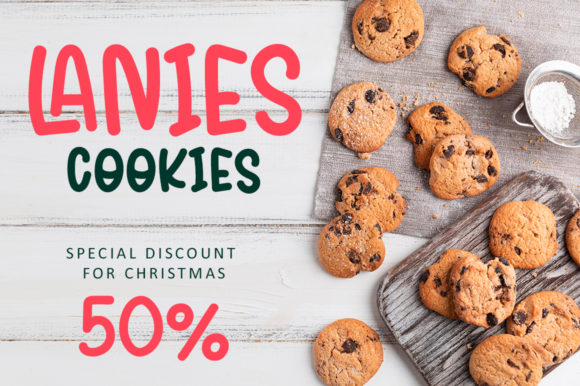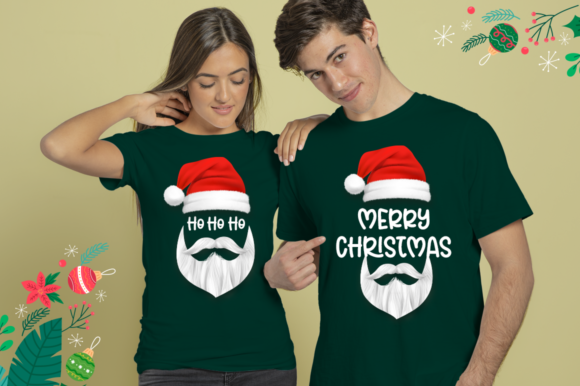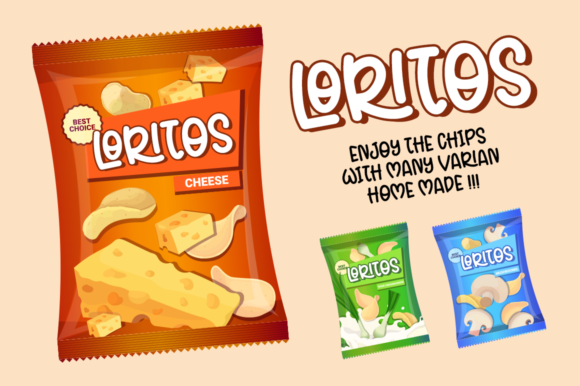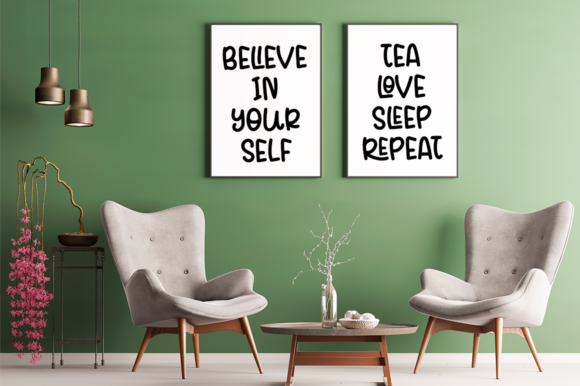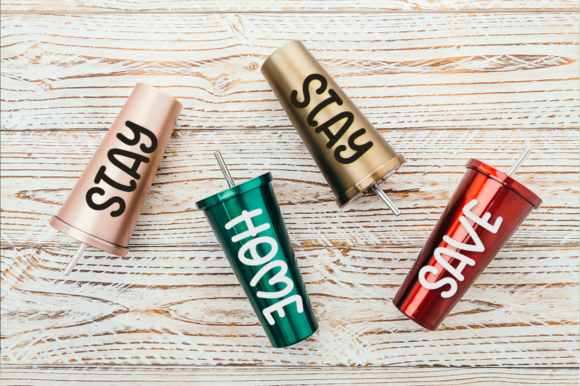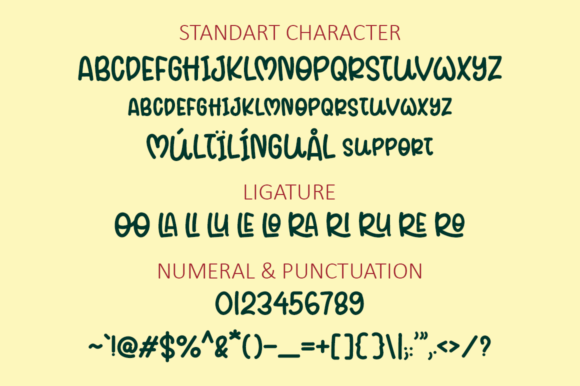
Introduction to Christ Moon Font
Christ Moon is a cute, quirky and chunky lettered handwritten font.
Fall in love with its incredibly versatile style and use it to create spectacular designs for the Christmas Season .